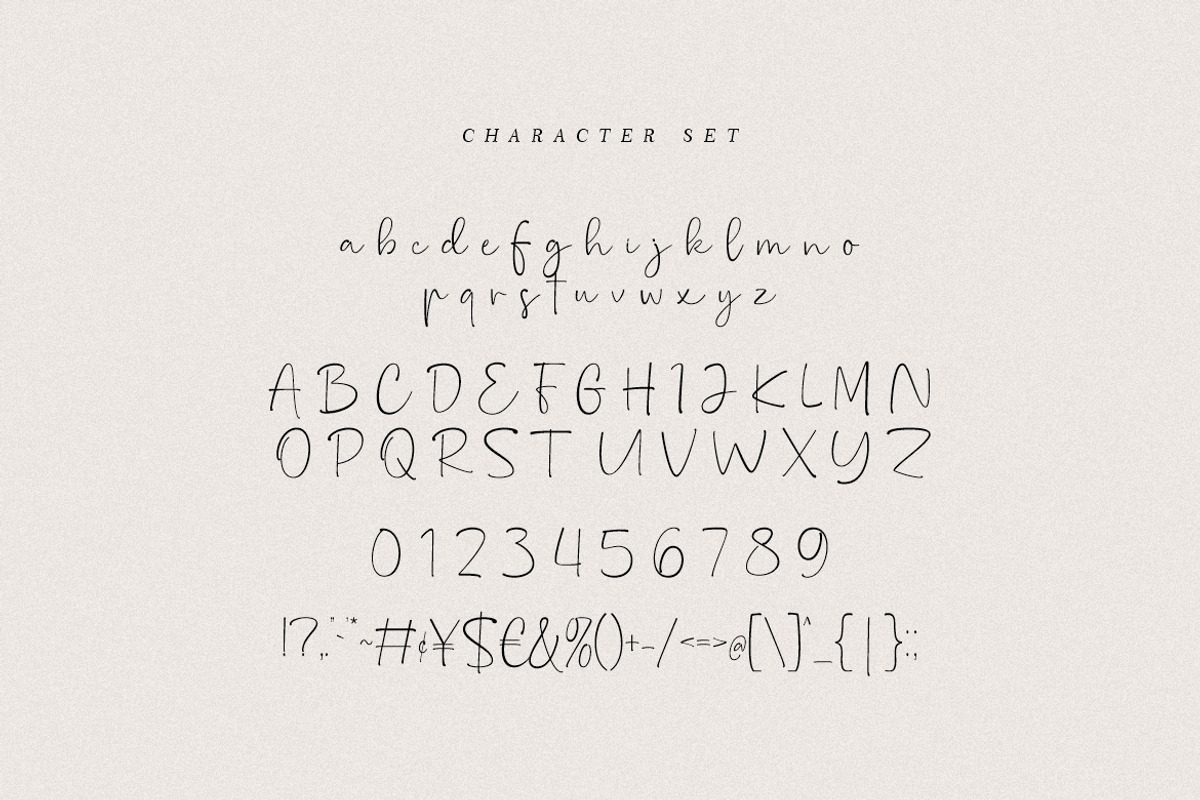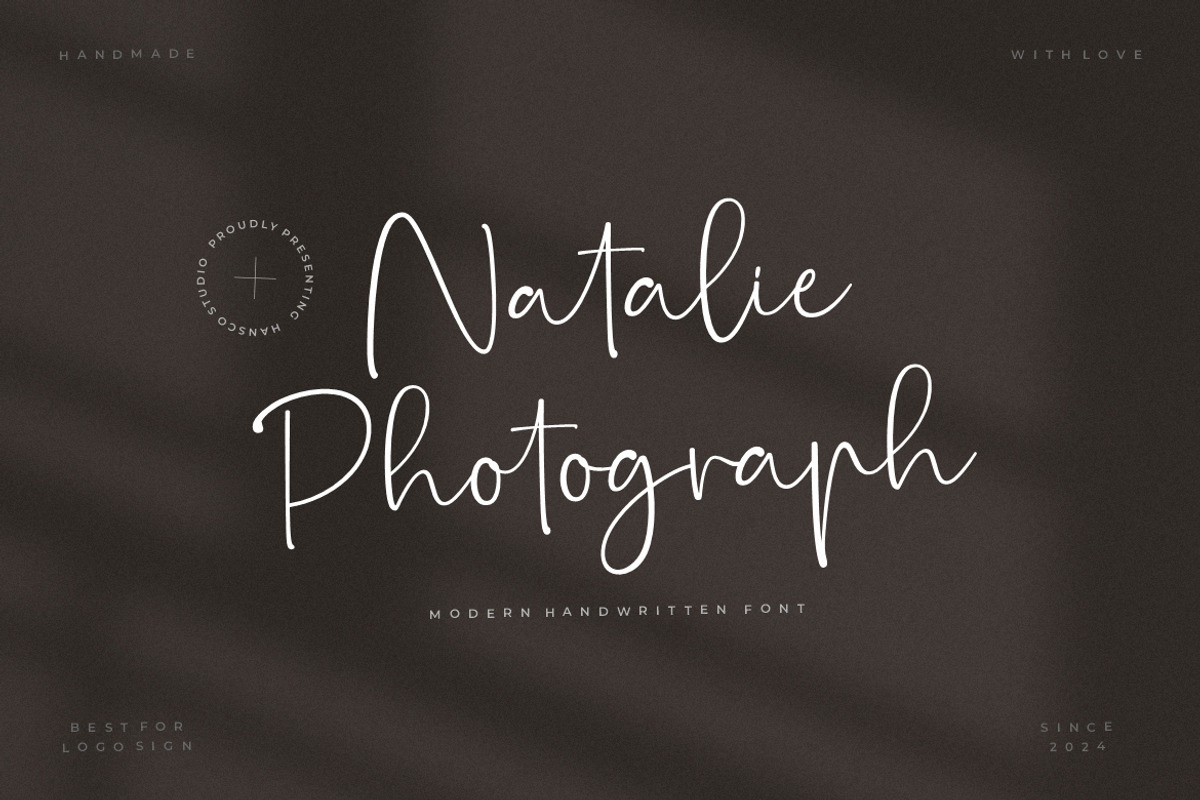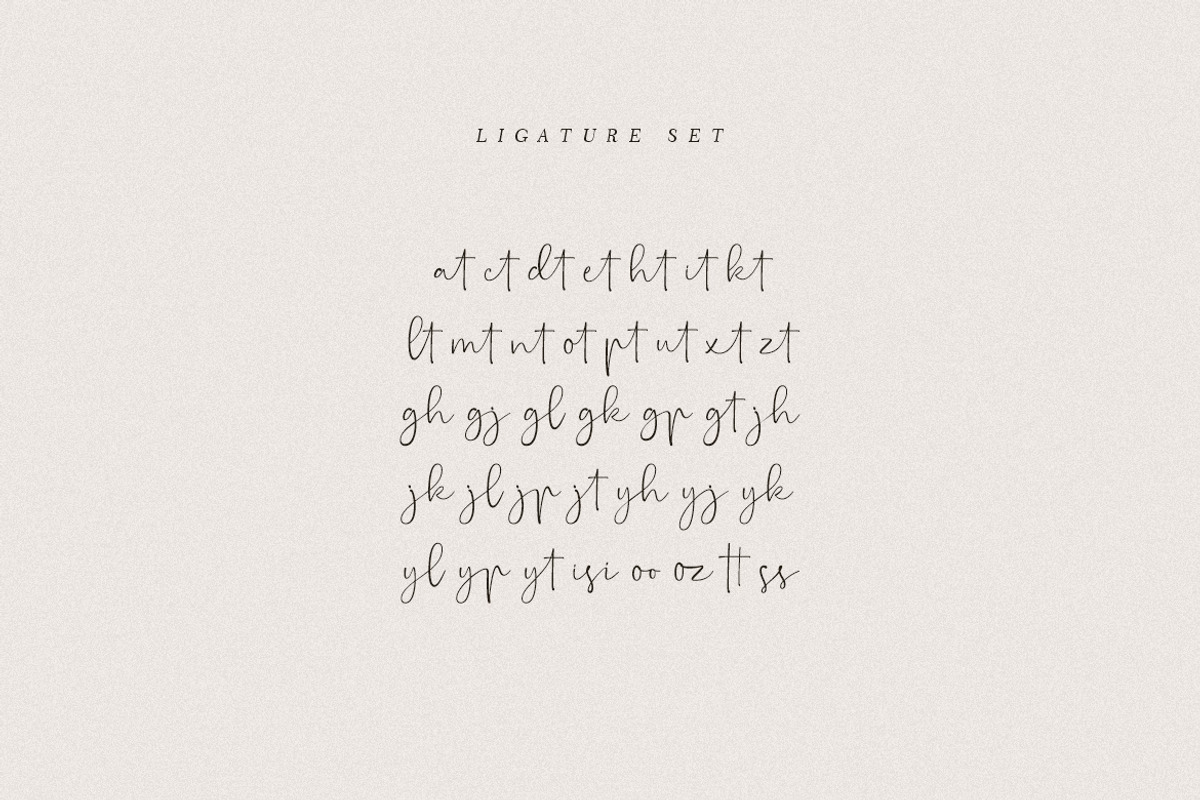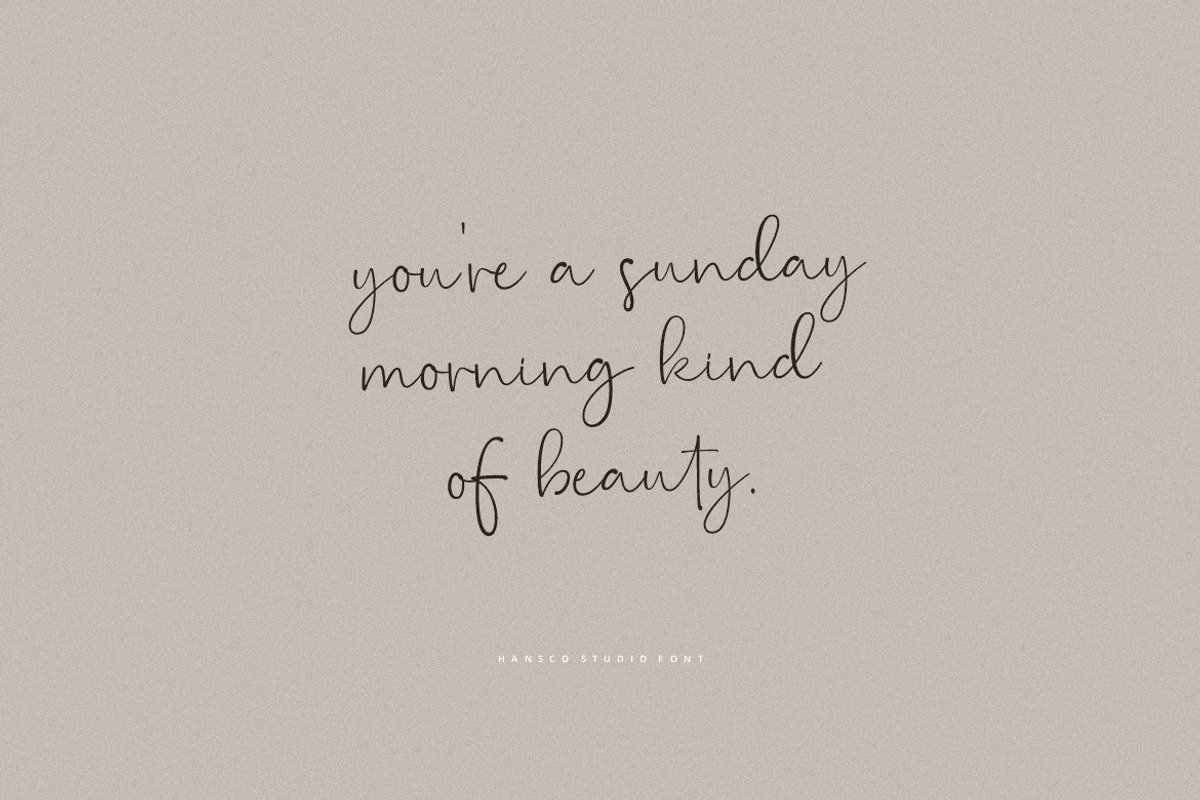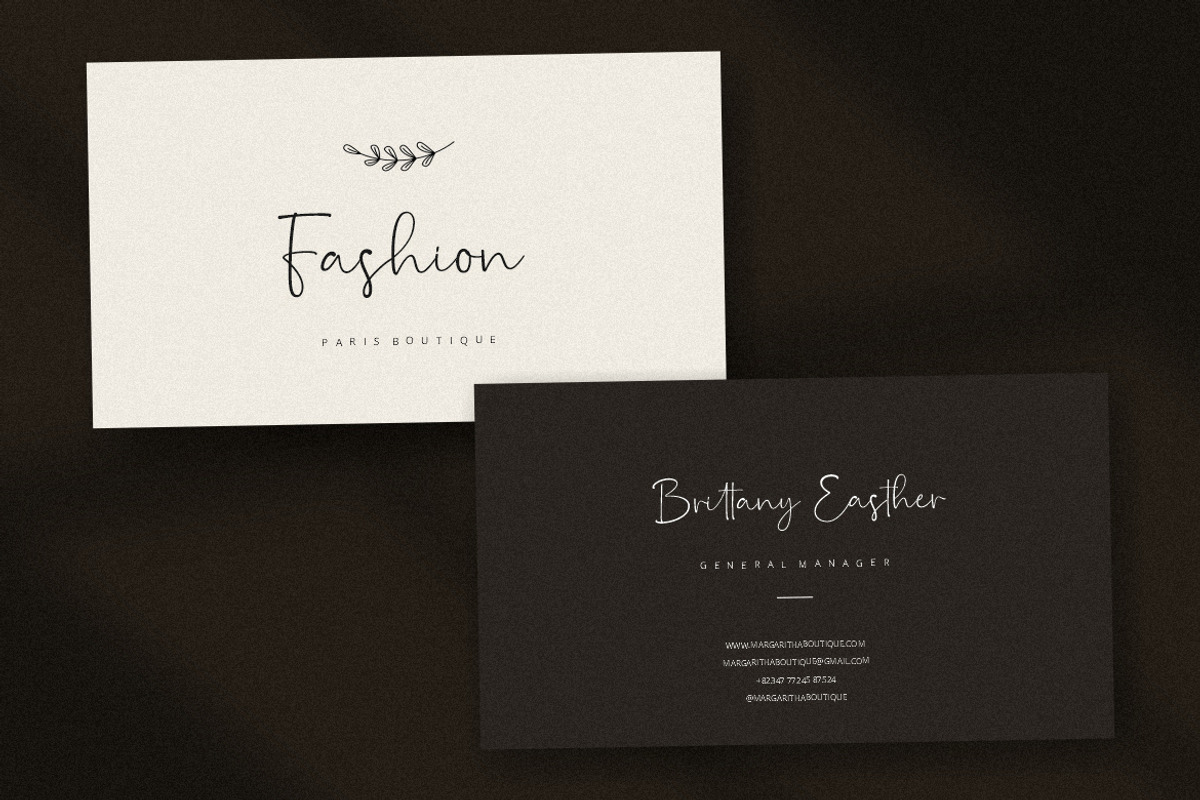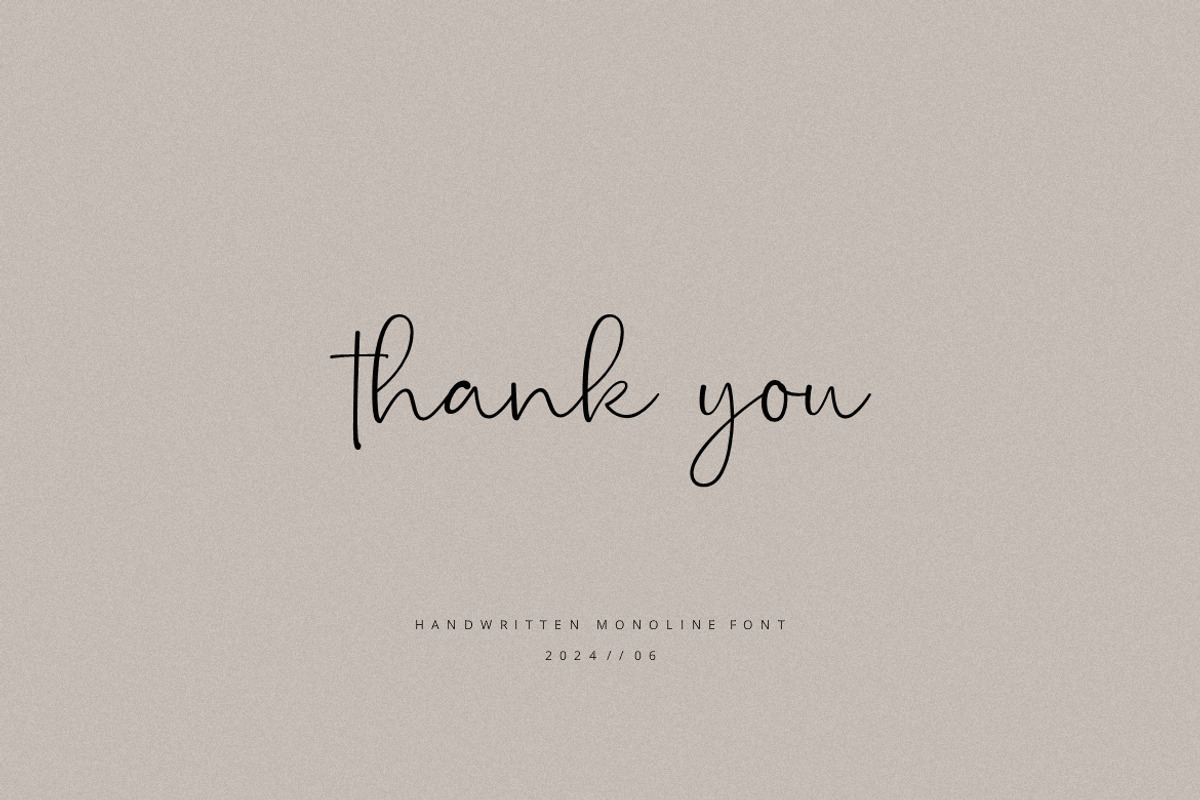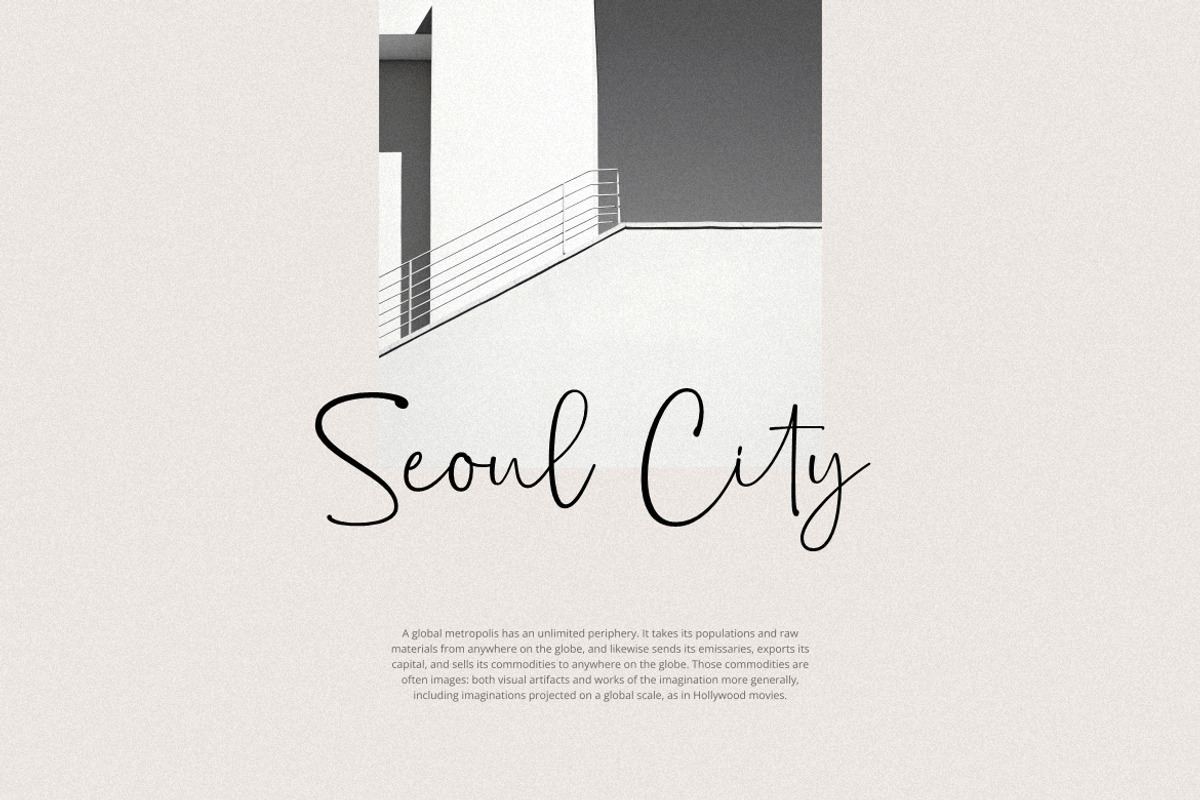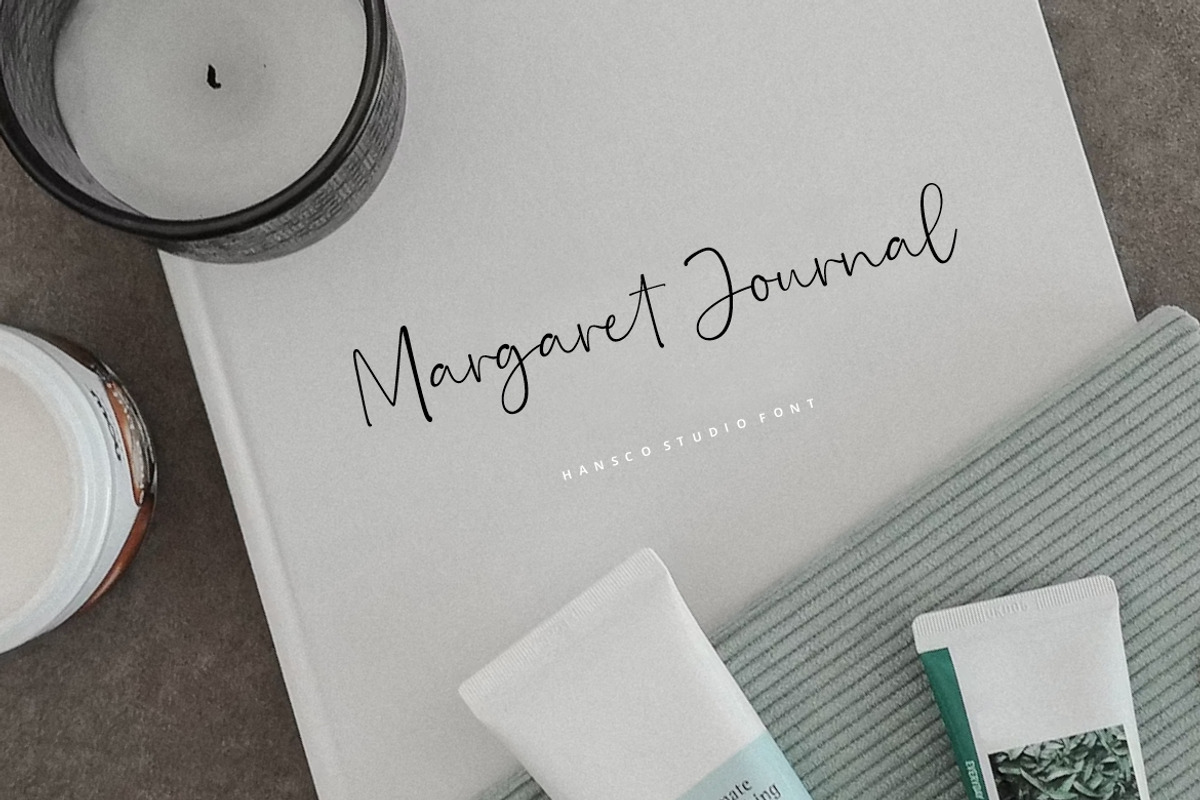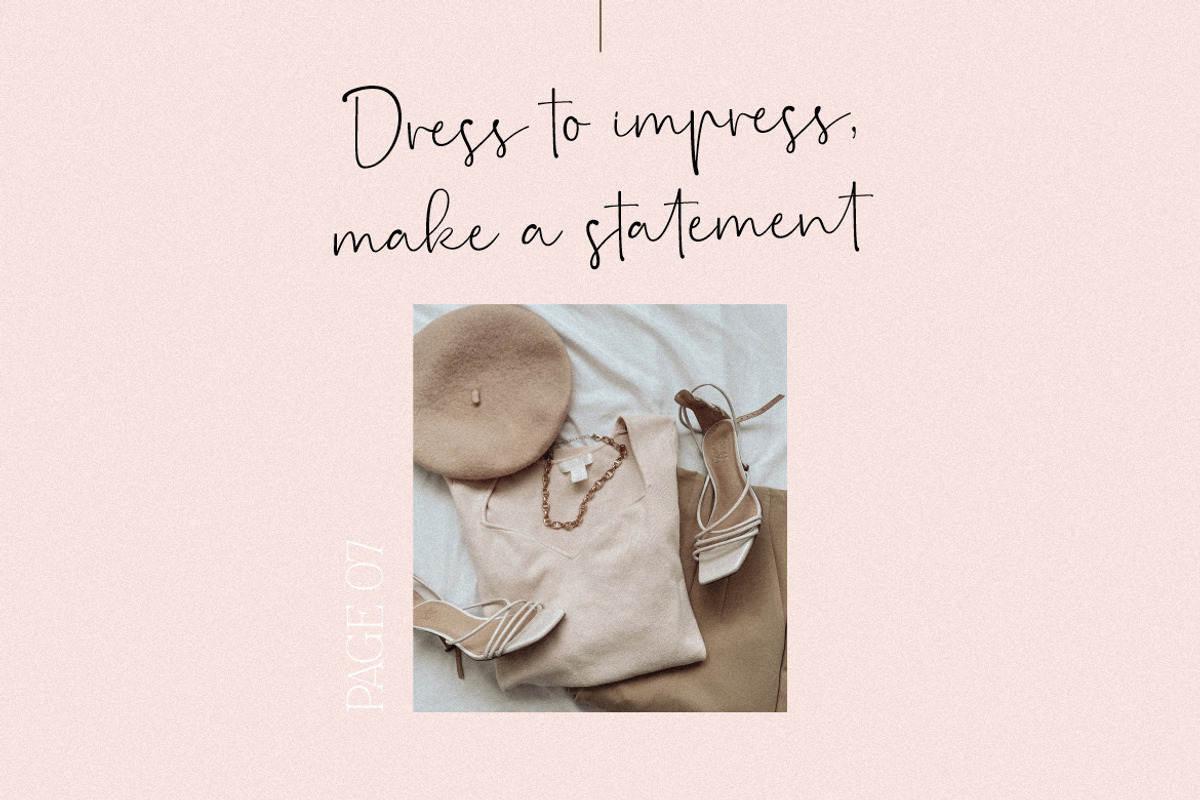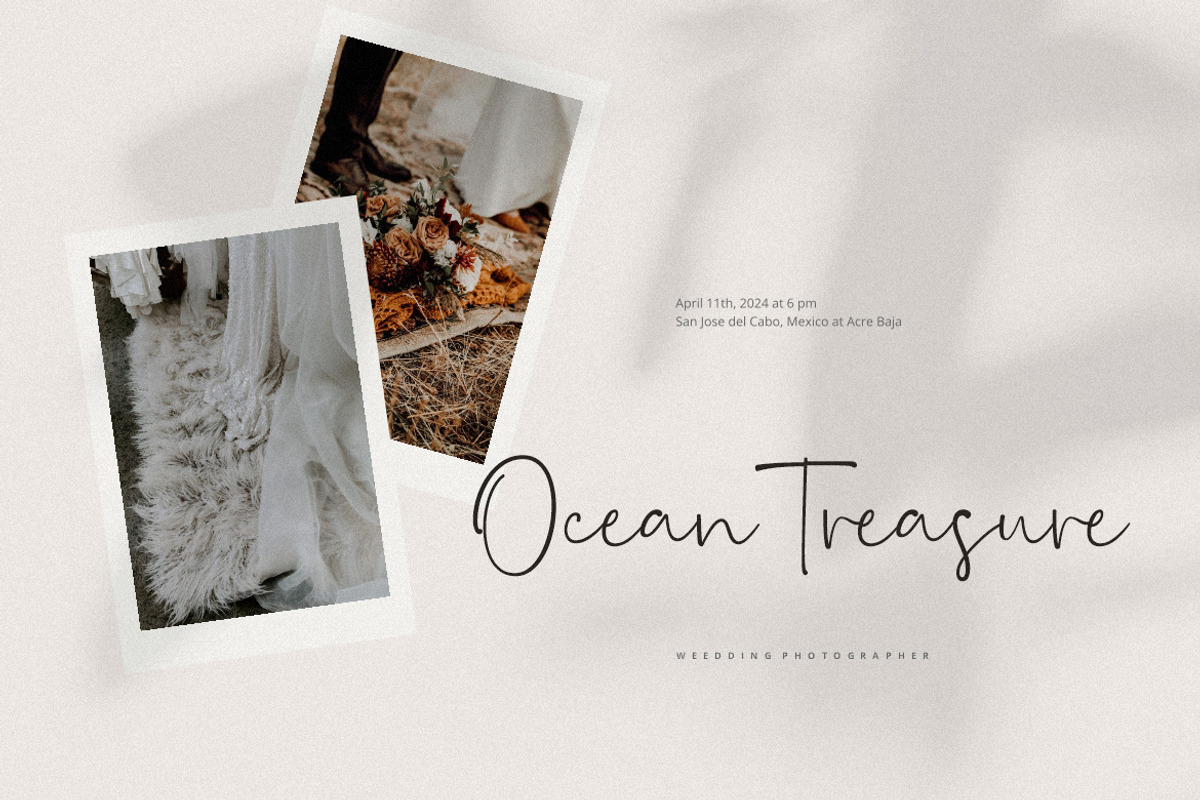
Natalie Photograph Font
Natalie Photograph Font is a modern, casually and feminine handwritten font. Some projects that are suitable for this font include quotes, menus, taglines, flyers, posters, invitations, greeting cards, posters, business cards, clothing, letters, stationery and many others. Comes with a full uppercase, lowercase, numbers, punctuation, ligature character and with extensive language support, it's going to be a very usable addition to your project.
Number
Multilingual Supports
Ligature